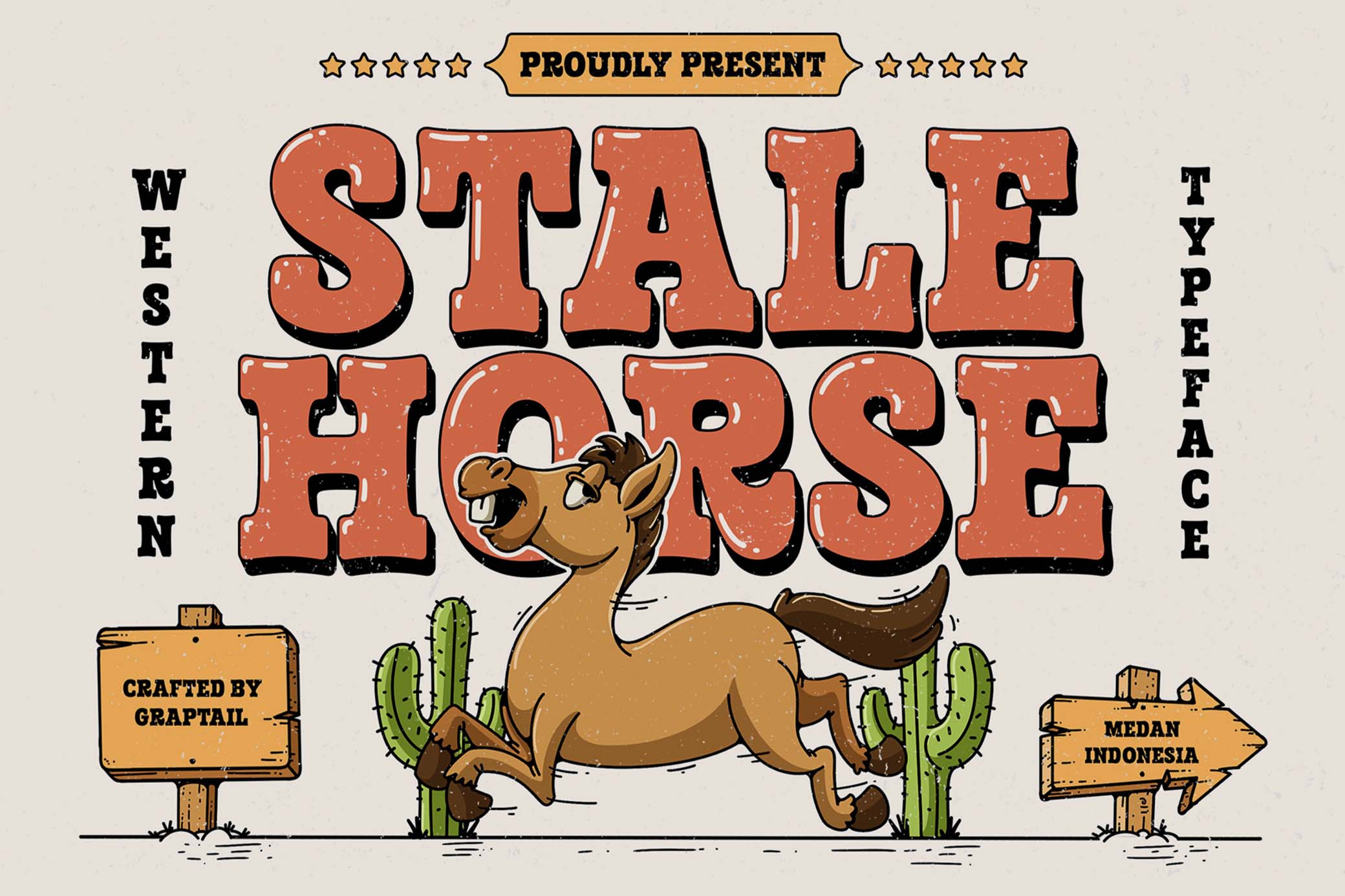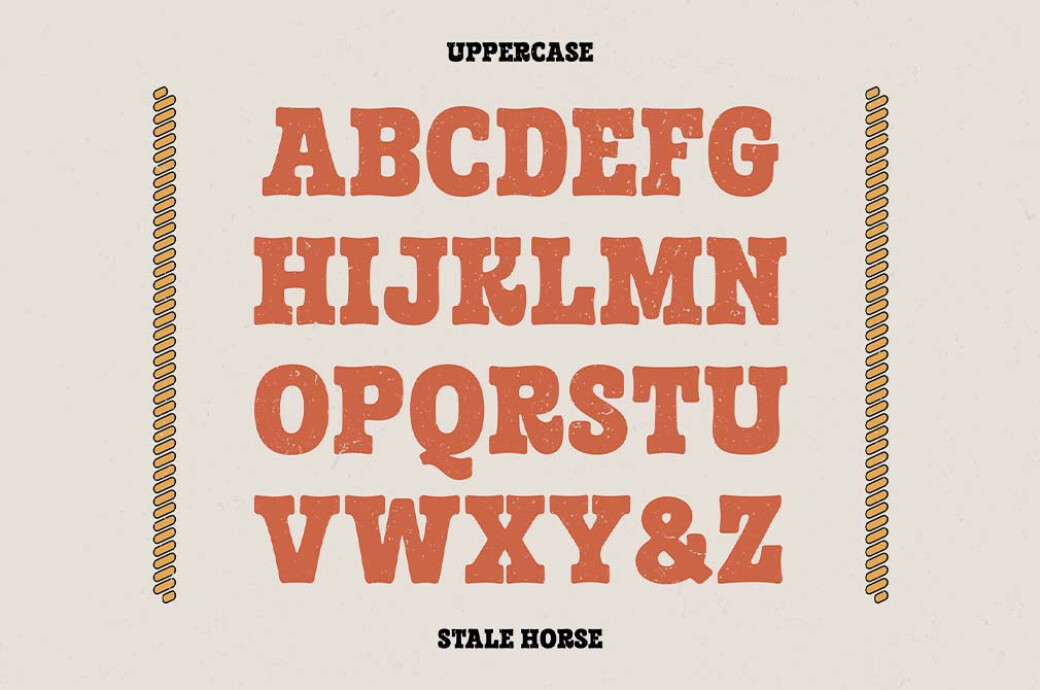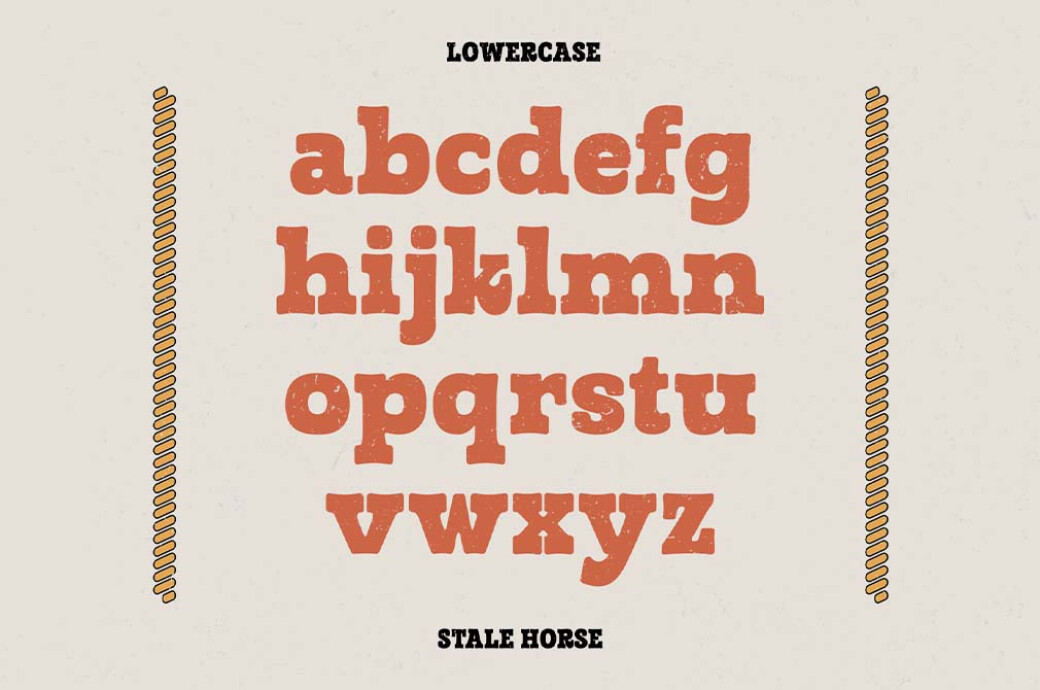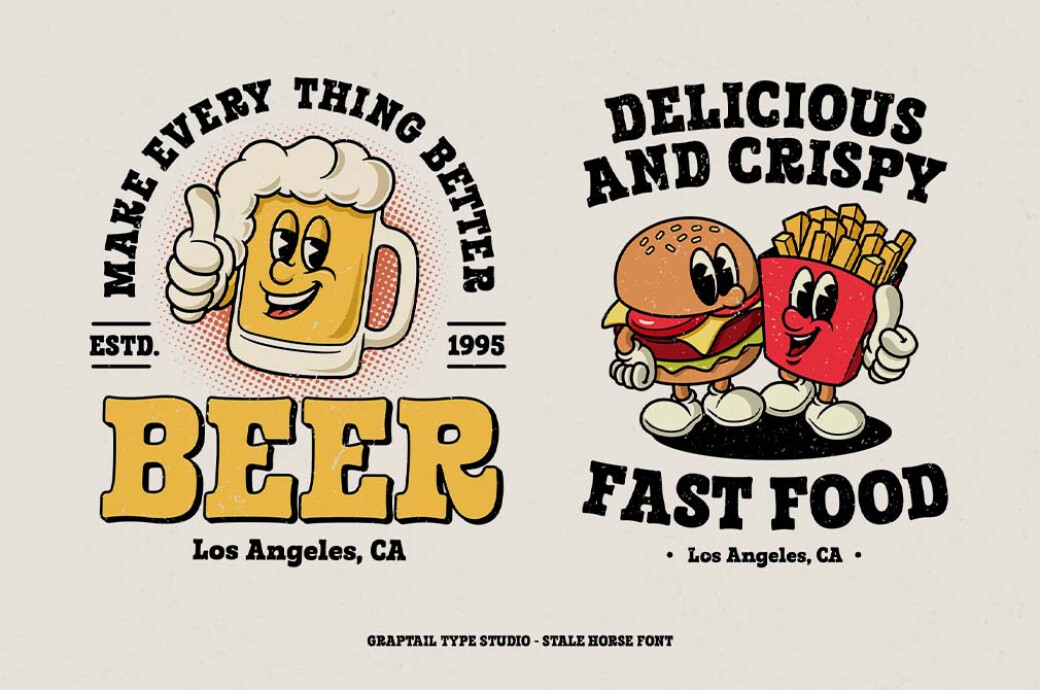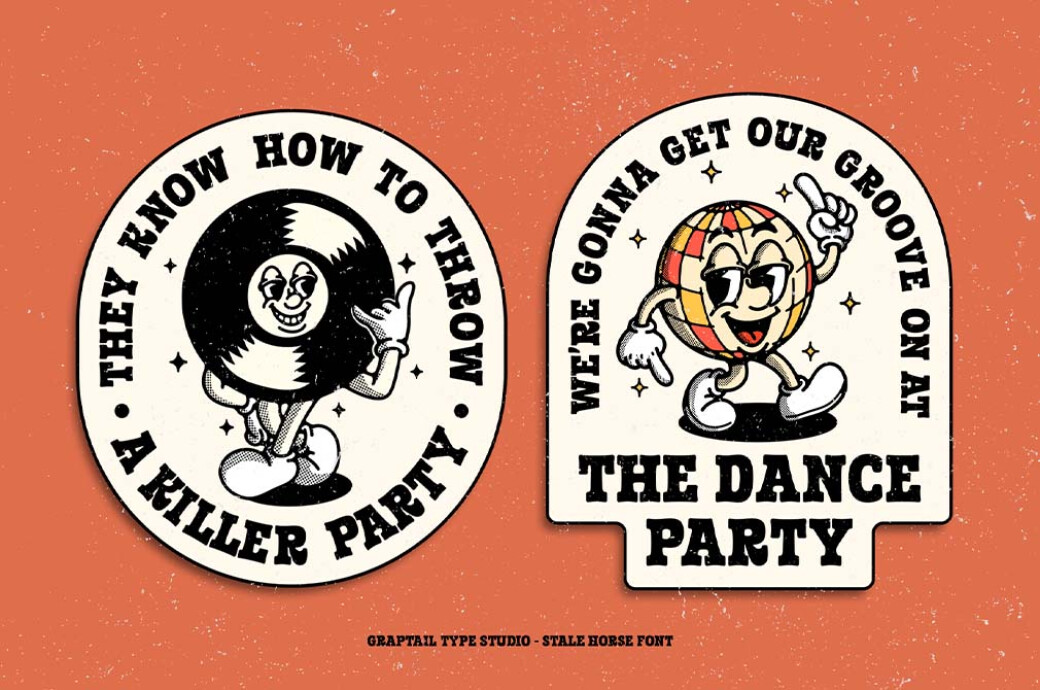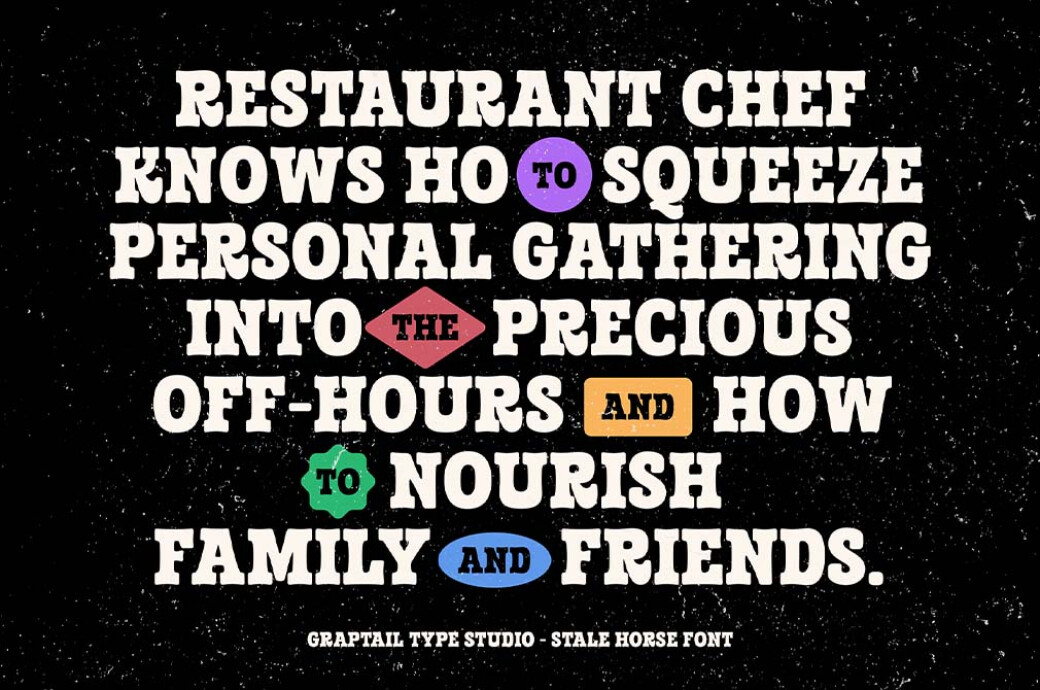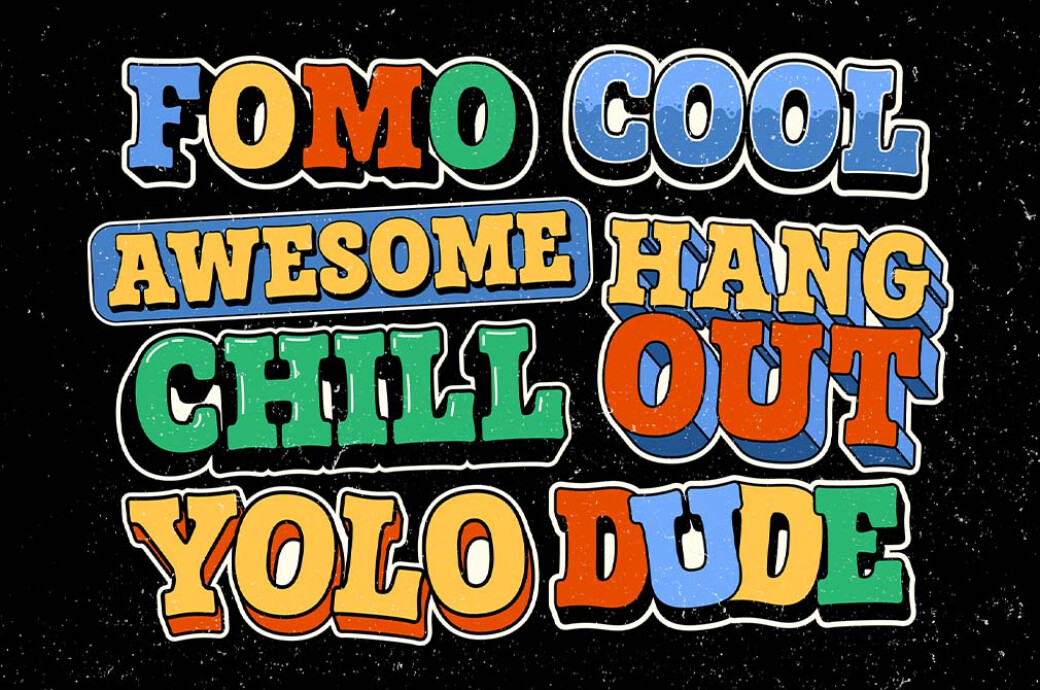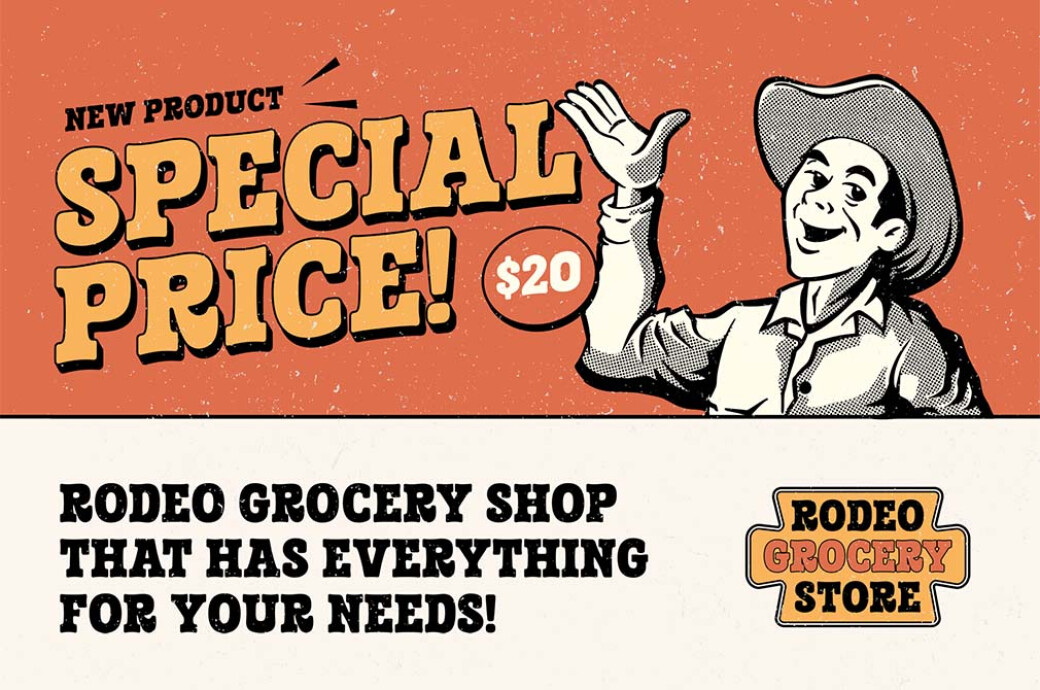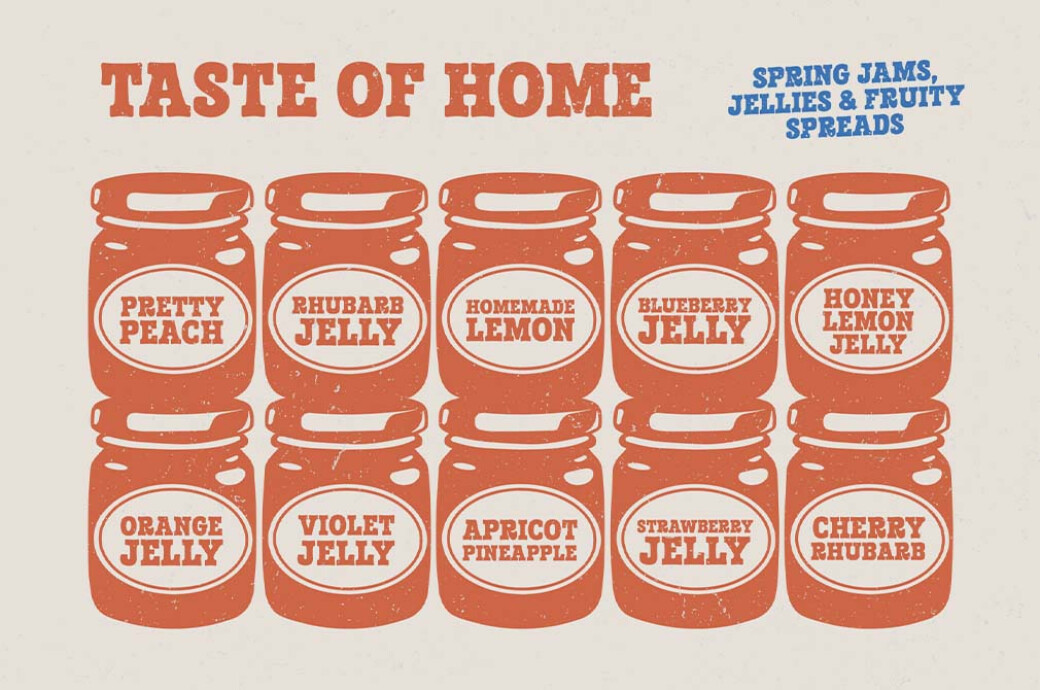
Stale Horse | Western Typeface
There's a reason cowboy culture has endured for as long as it has: it's got a vibe few other trends can repeat. Second, its visual elements, like graphics and typography, look timeless wherever you place them, even as they merge cartoon and Western looks (yeah, we mean Stale Horse).Neatly stripped-down and integrated into the cartoonish aesthetics, the slab serif looks to cowboy culture to deepen the retro feel. Stale Horse has lowercase and uppercase letters, numerals, and symbols couched in the same style. The font will highlight the branding identity and advertisements for Western-inspired Texas-like burger restaurants, pizzerias, themed parties, merches, and even social media posts.